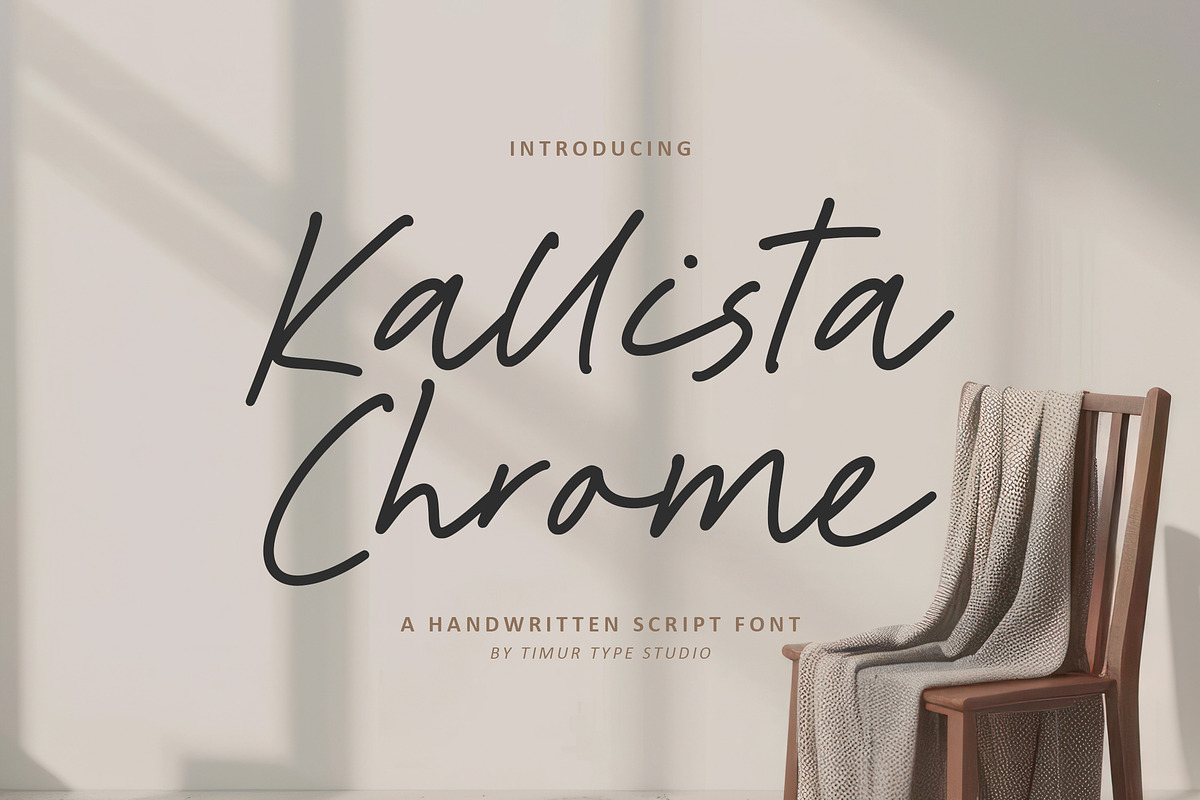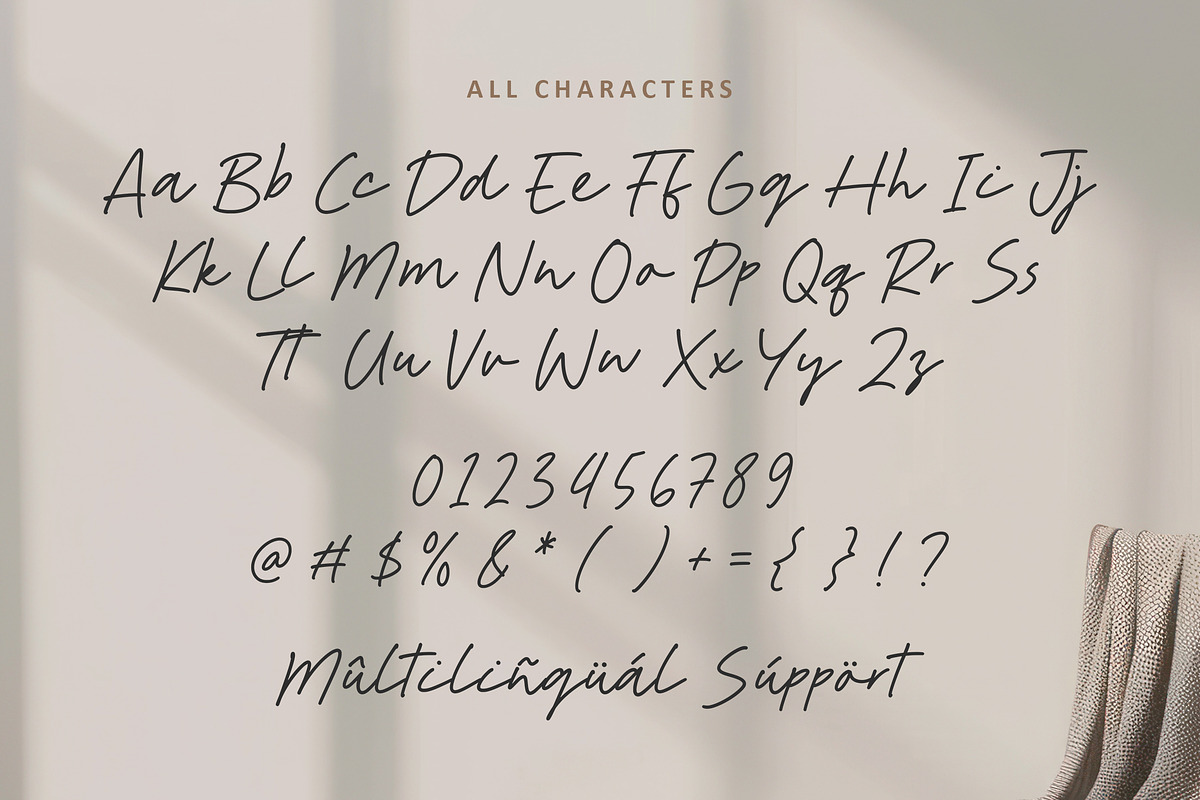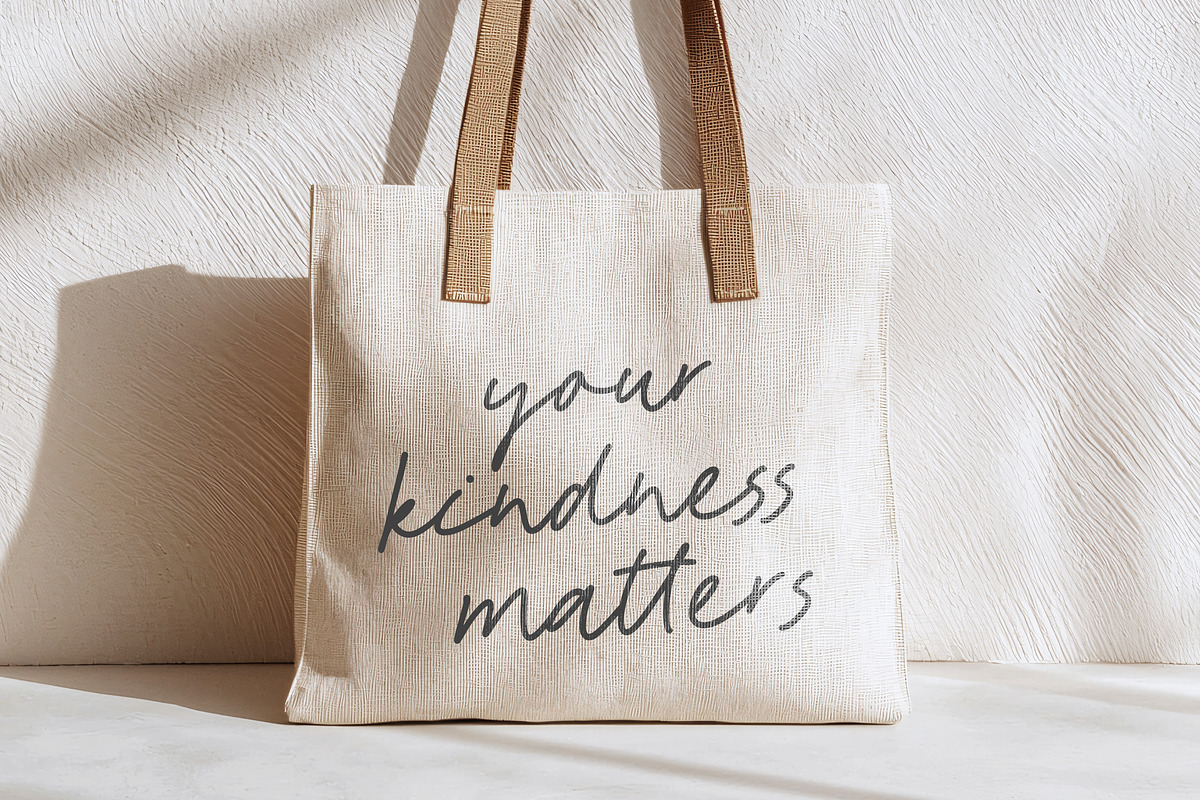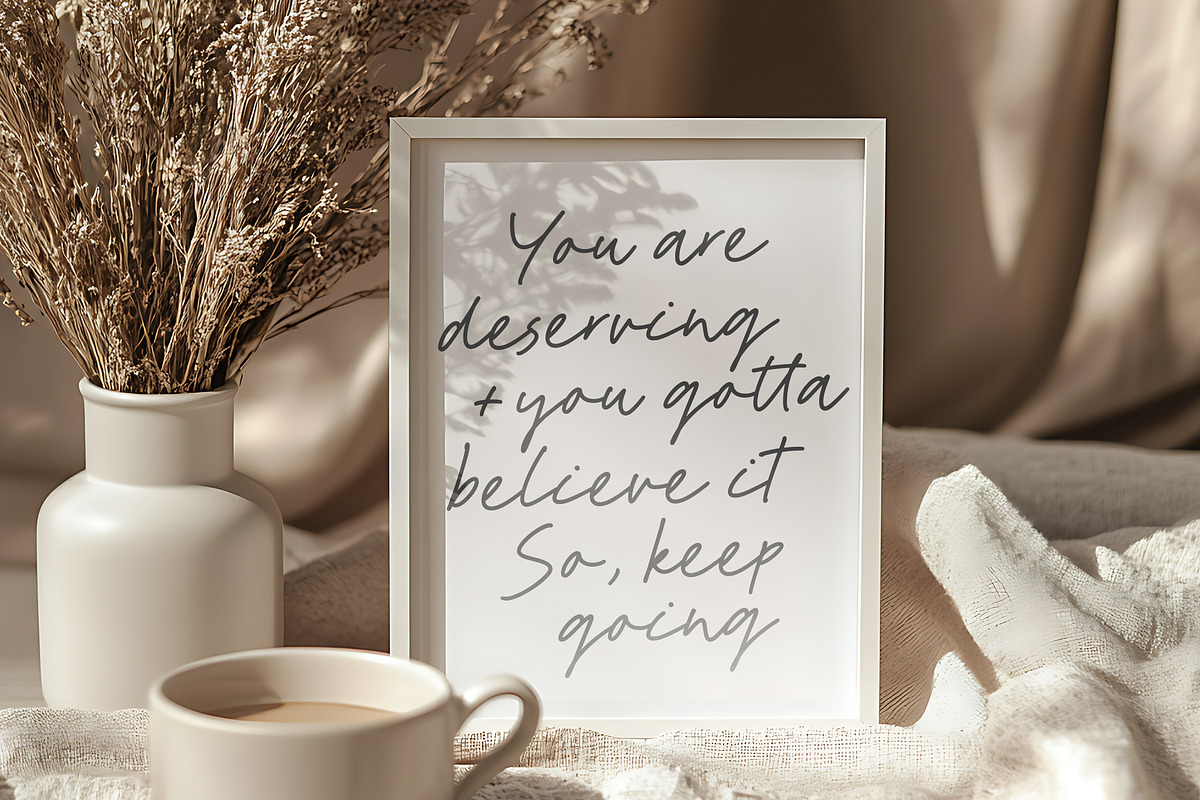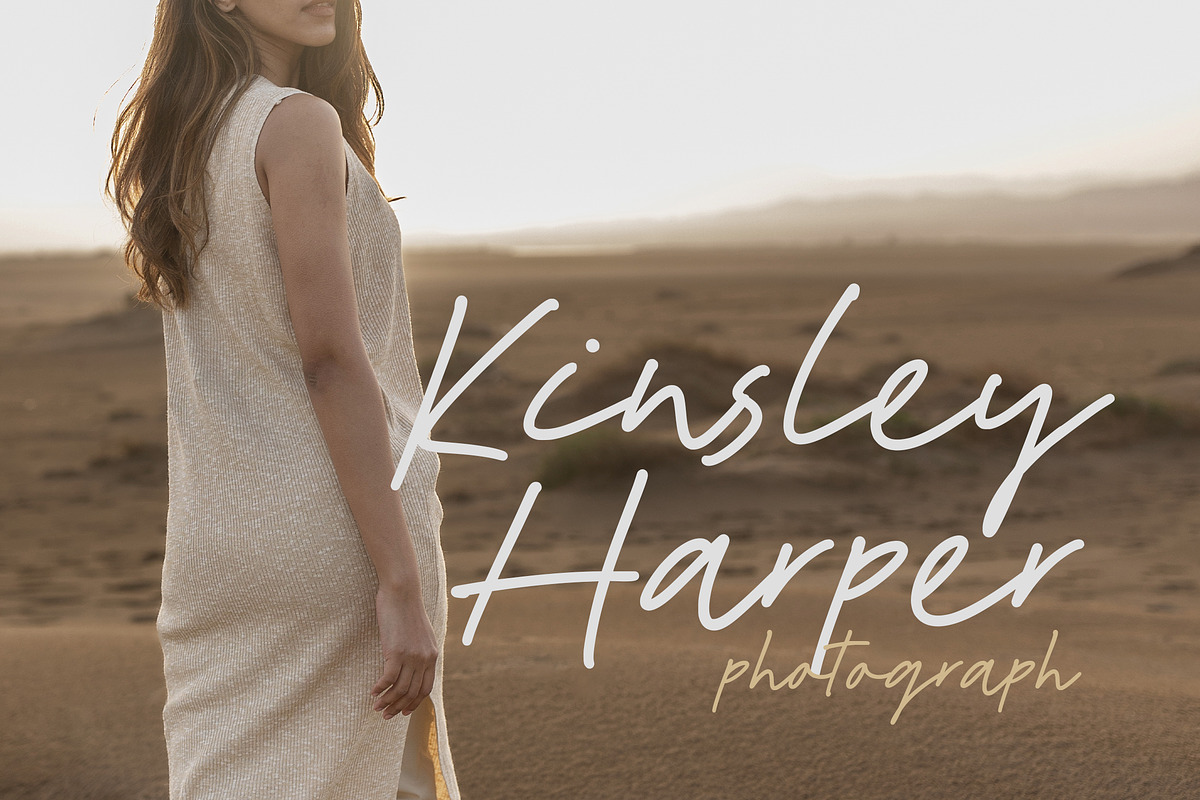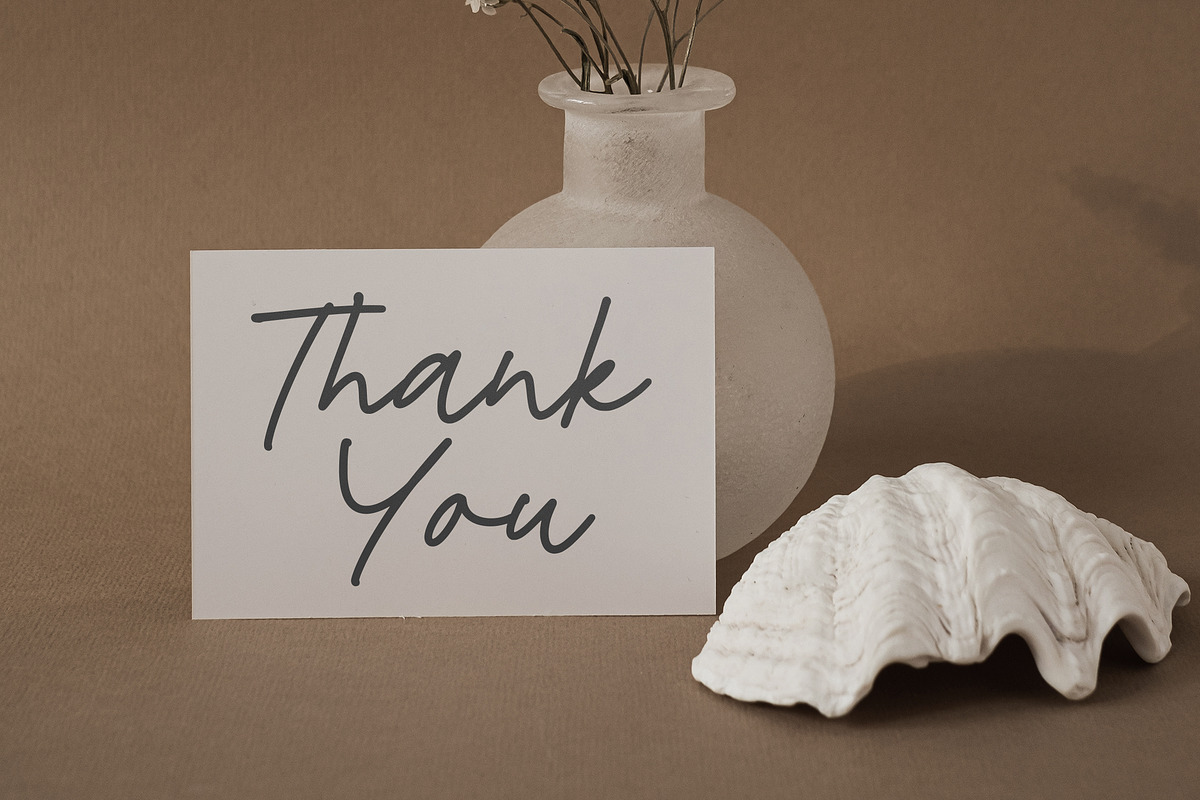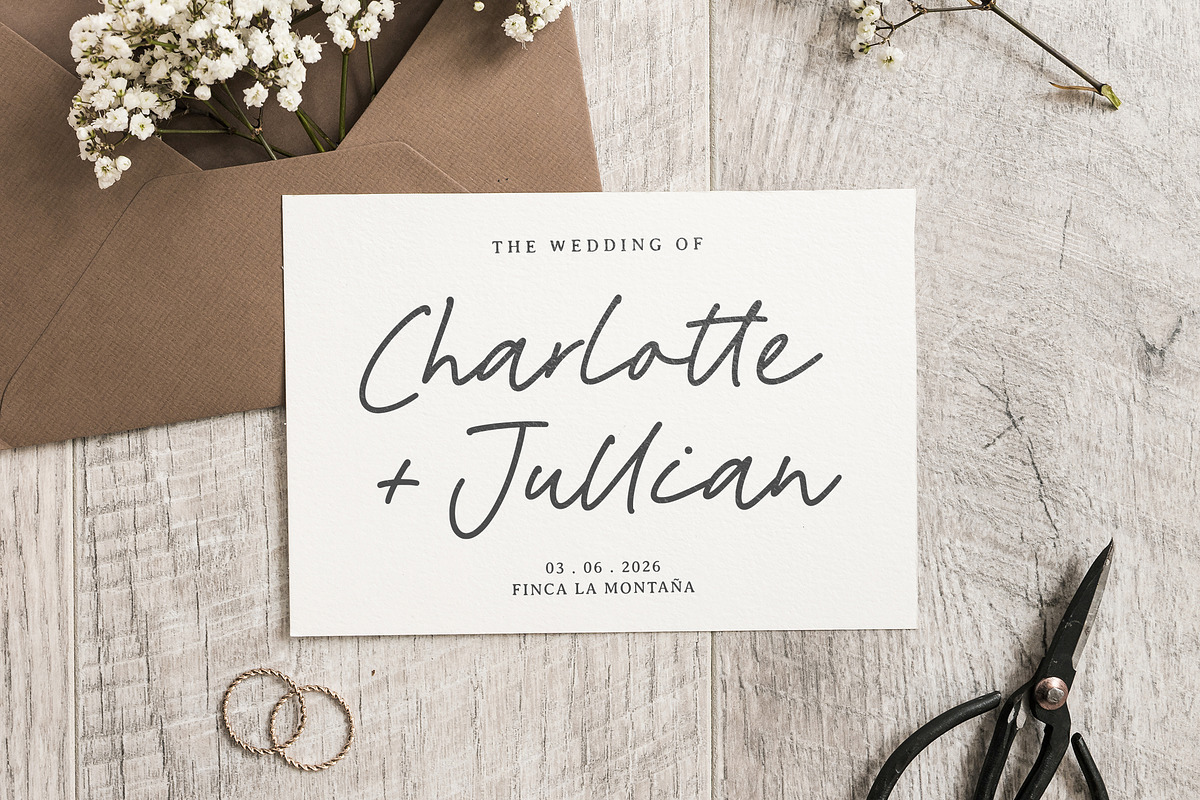
Kallista Chrome Font
Kallista Chrome is a Handwritten Script Font
Kallista Chrome is an elegant handwritten script font that blends sophistication with modern flair. Its smooth, flowing strokes mimic fluid cursive writing, while its subtle metallic sheen (as suggested by Chrome) adds a polished, premium quality. The letterforms are rounded yet refined, giving it a warm, personal touch without sacrificing readability. Ideal for branding, invitations, packaging, or any design project where you want a luxury handcrafted feel with a hint of metallic glamour.
Kallista Chrome Font also supports multilingualism